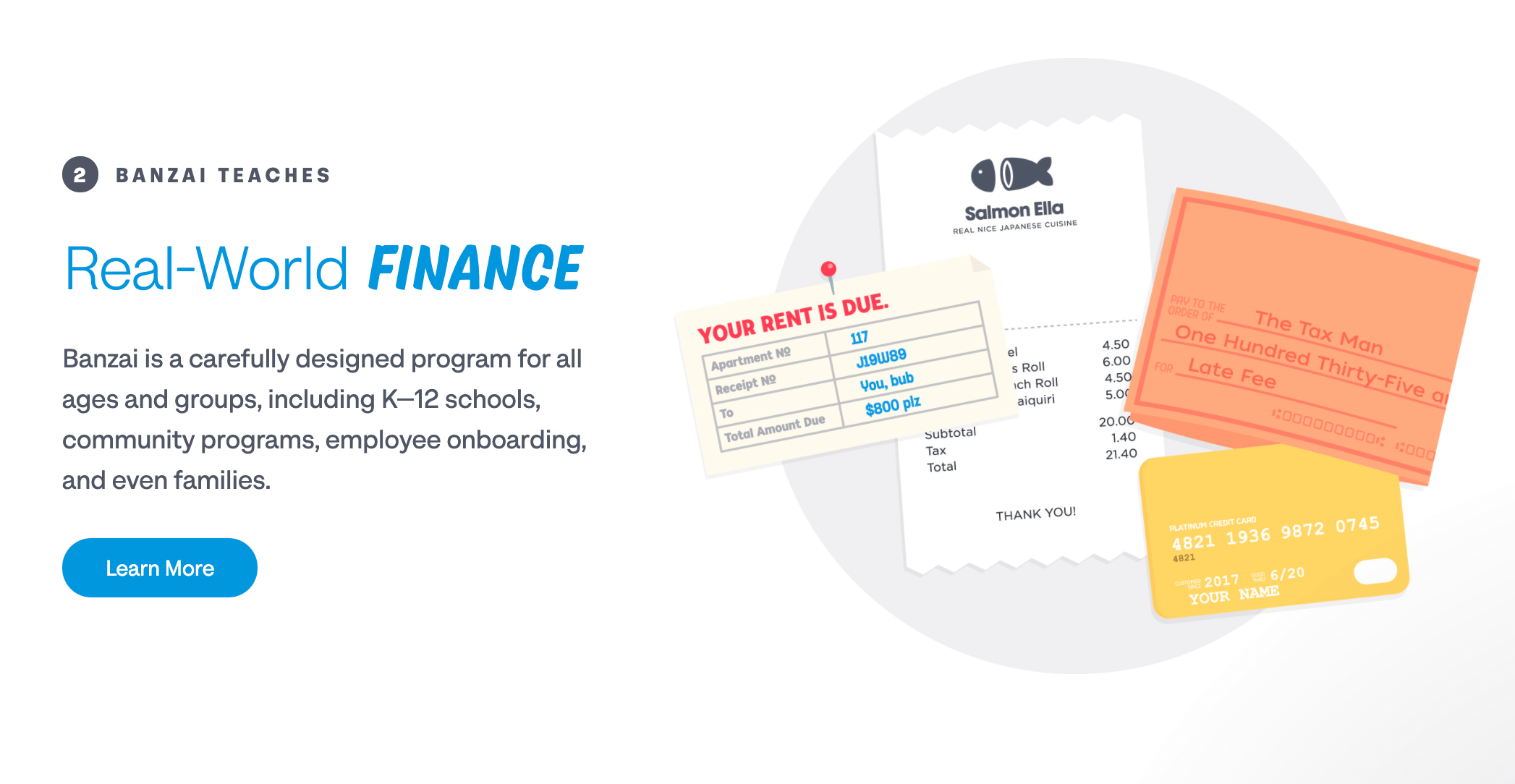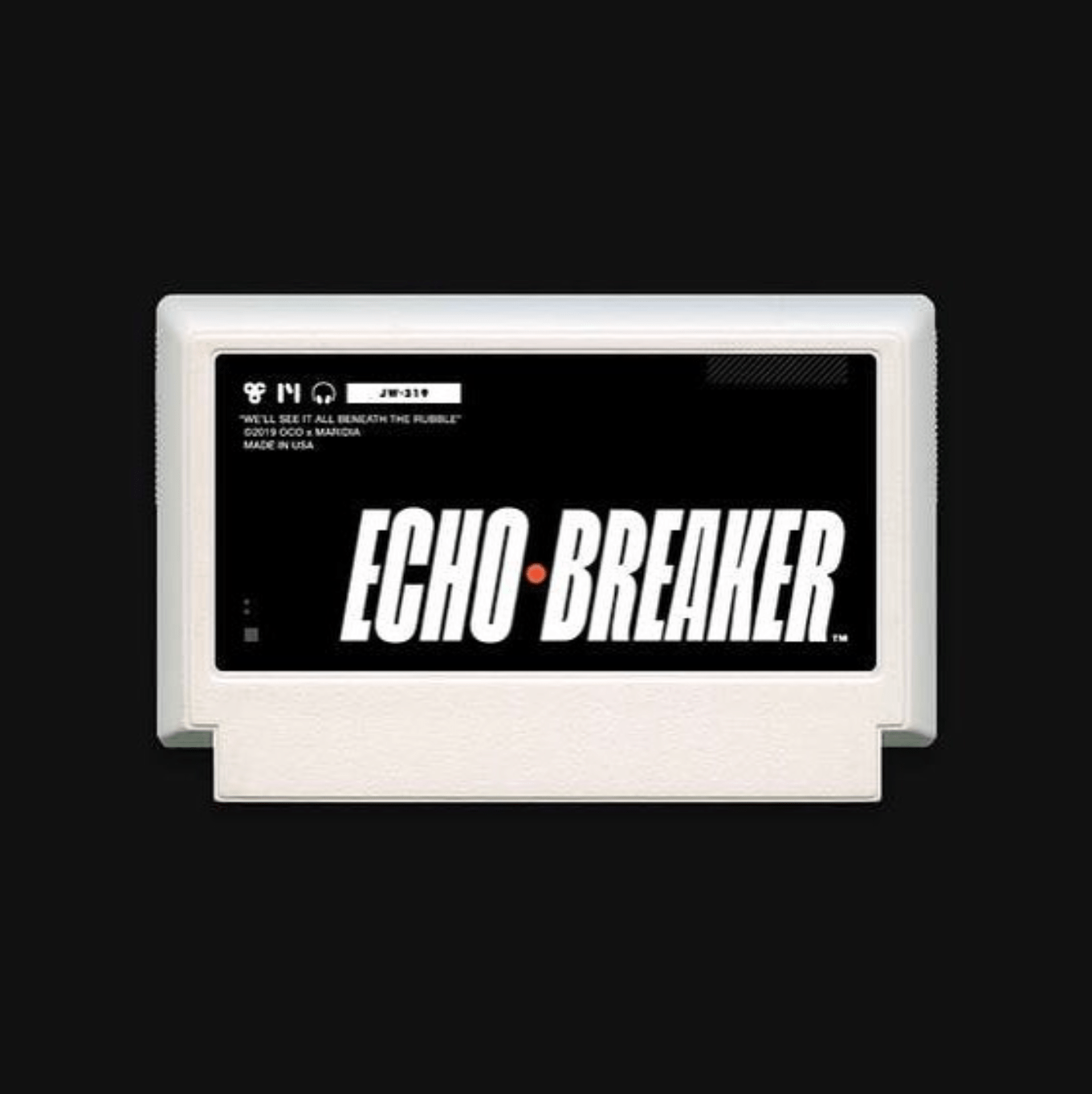
Cardinal
For as long as there have been poster grotesques there have been sign painter’s titling. As sung in the old Scottish folk ballad, “An’ a grotesque sans there hae e’er been/ an’ a sign painter’s titling, sweet/ but the two don’t ‘bide together, my son/ an ne’er the twain shall meet.” And yet—it appears that with the drawing of Cardinal Grotesque, star-crossed lovers from either camp have come together! This type family is in fact, a combination of the two—sleek and clean wed to vernacular zest.
Designer
Kyle Benson
ss01
Alternate Gs
Goggles
ss02
Single story a
Adaptable
ss03
Non calligraphici contrast
MONOLINE
ss04
Fancy Q
Quilters
ss05
Fancy K
Krusty
ss06
No tail on R, a
Raspberry
ss07
Thin furniture
“1% on-line”
ss08
Simplified one
100 Ways
ss09
Thick outline symbols
@©®
ss10
Alternate &
Bee & Co
ss11
Small symbols